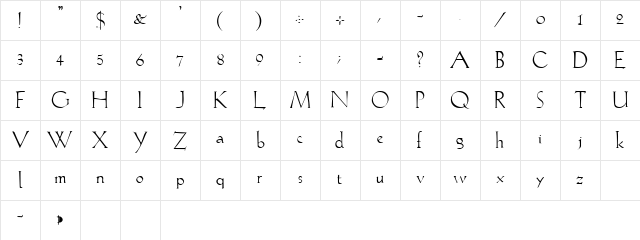
Lilith Regular Free Font
Lilith Regular
Design Context for Lilith
Lilith is a composed and adaptable typeface that performs quietly and consistently across a wide range of design contexts.